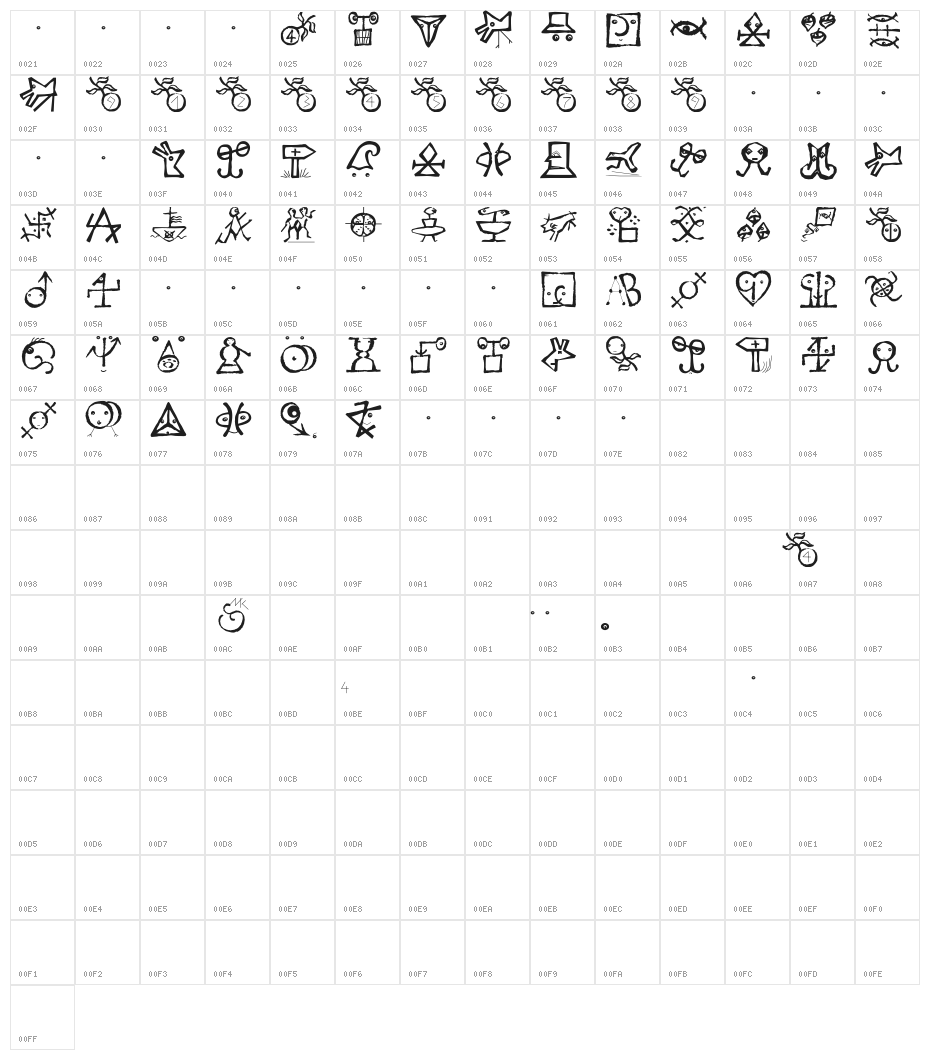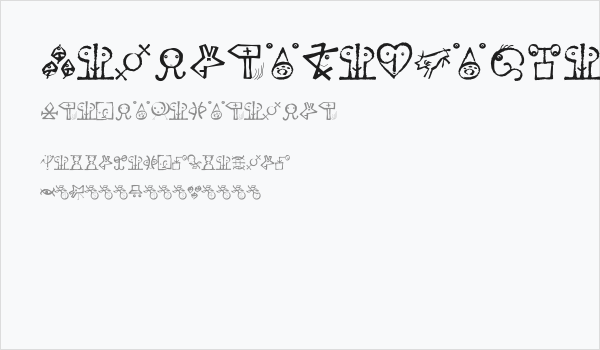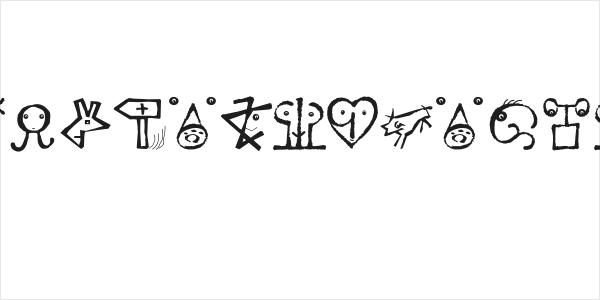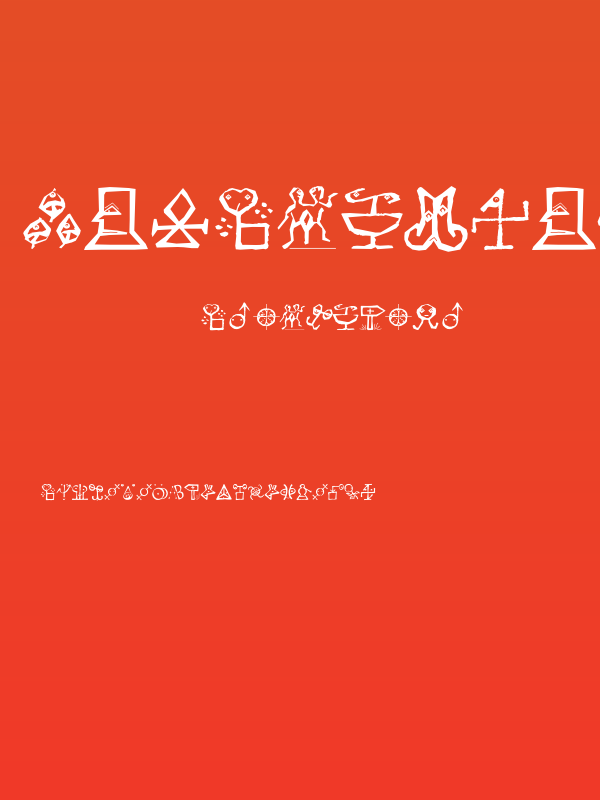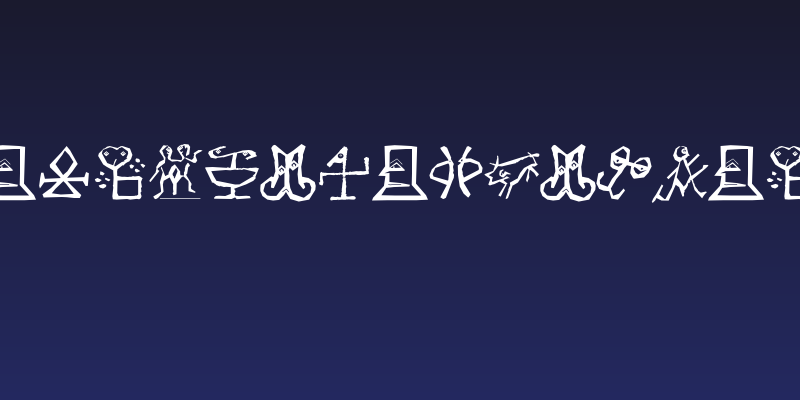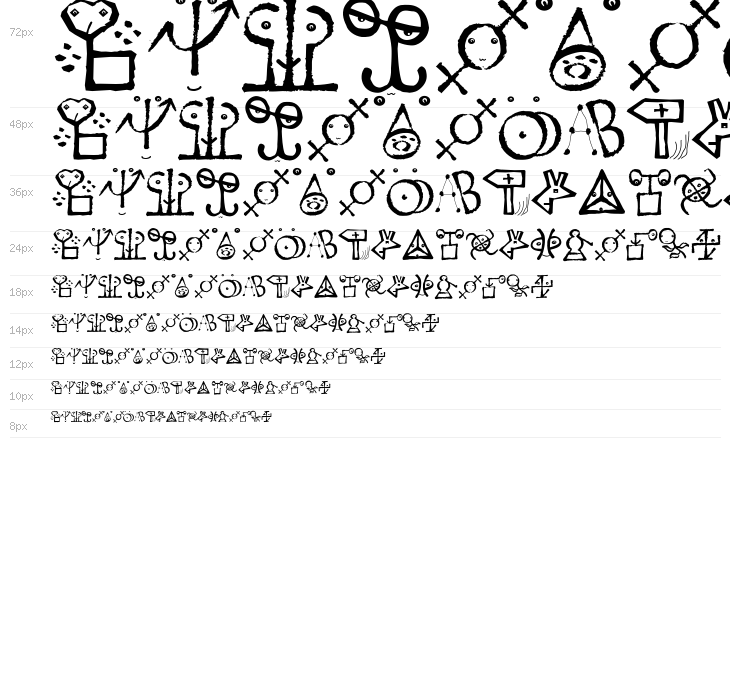
VectorizedSignets Font
| حالة الاستخدام | Logos, Artistic projects, Decorative elements |
| مشاريع مقترحة | Ideal for use in graphic design projects, such as creating unique logos, artistic posters, or as decorative elements in digital art. They could also be used in branding for products that emphasize creativity and uniqueness. |